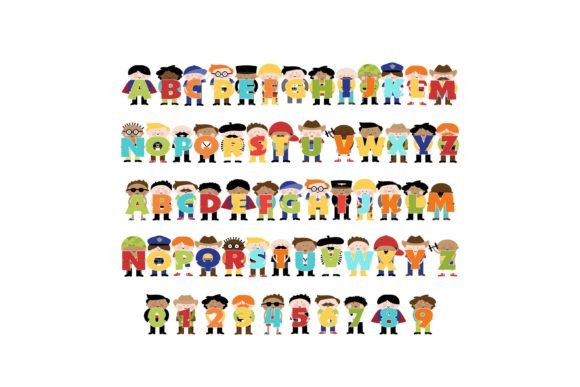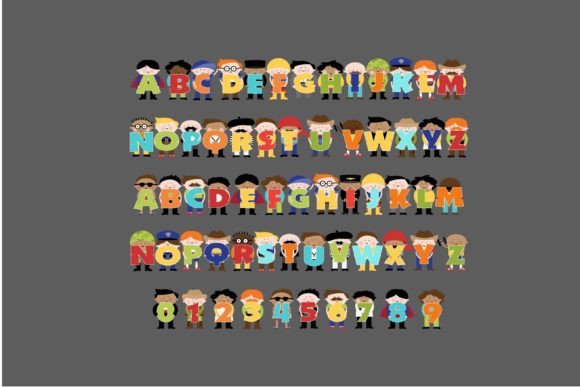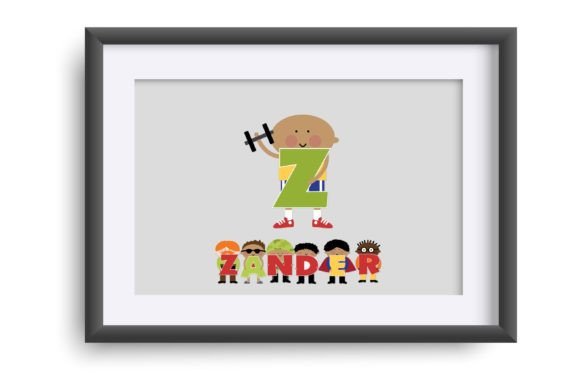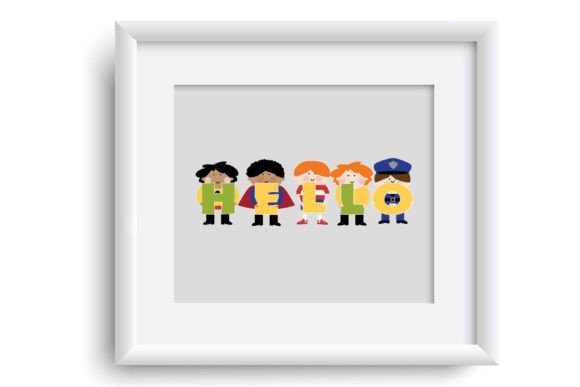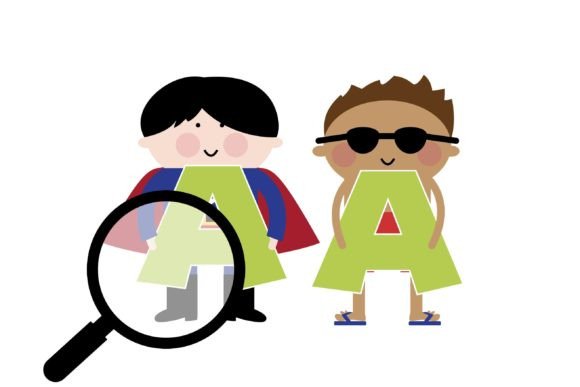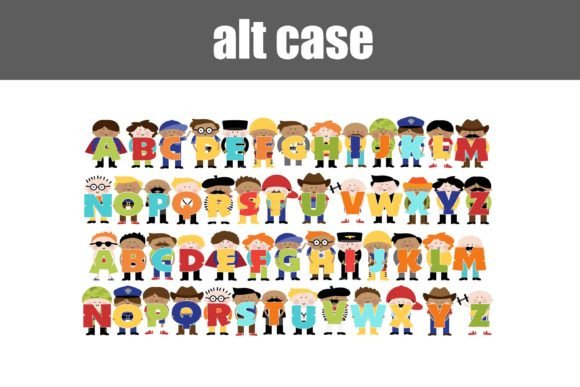
Introduction to Dozens of Dads Font Font
Fonts play a crucial role in design, and the Dozens of Dads Font font is a typeface that brings both character and versatility to any project. Whether you’re working on a branding project, a website, or a print design, the Dozens of Dads Font font offers a unique style that can elevate your work.
This full-color font features a blocky sans serif letter held by a number of cute little fathers.
Key Features of Dozens of Dads Font Font
Why Choose Dozens of Dads Font Font?
The Dozens of Dads Font font is more than just a typeface β it’s a design tool that helps you communicate your message with style and clarity. Its unique character set and versatile design make it suitable for a wide range of applications, from elegant invitations to bold headlines.
With its carefully crafted letterforms and balanced proportions, the Dozens of Dads Font font ensures readability and visual appeal across all mediums.
What makes Dozens of Dads Font font special?
The Dozens of Dads Font font stands out with its unique design, exceptional readability, and versatility across various design applications.